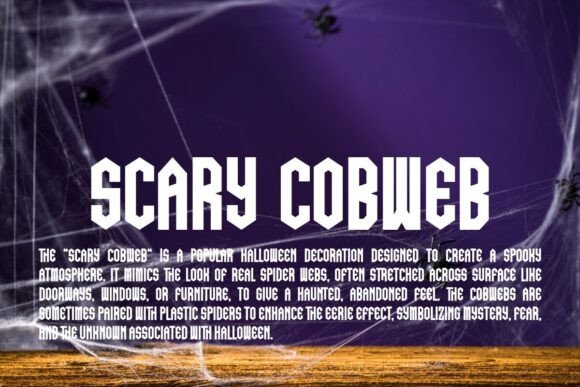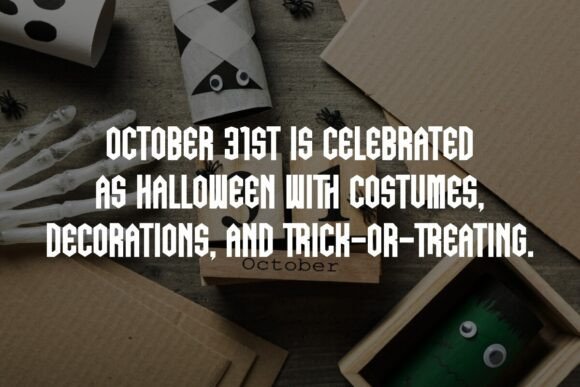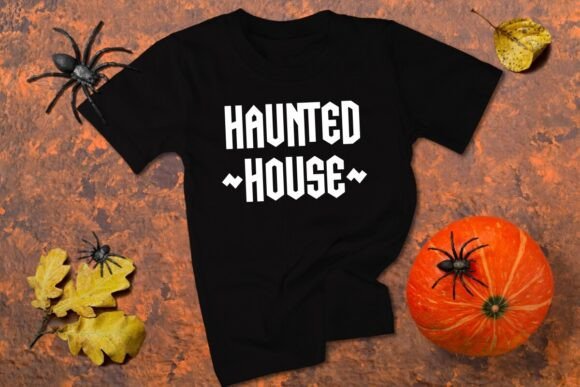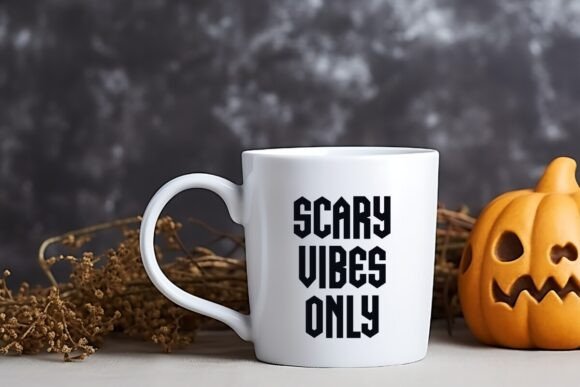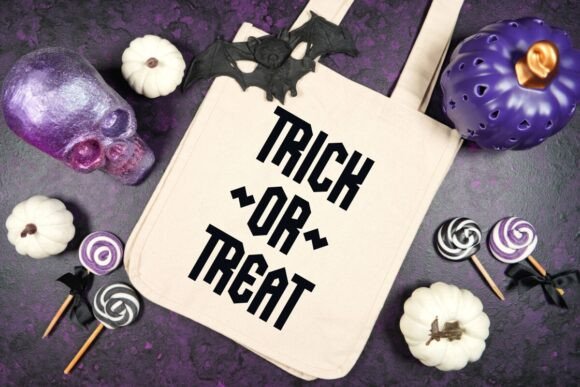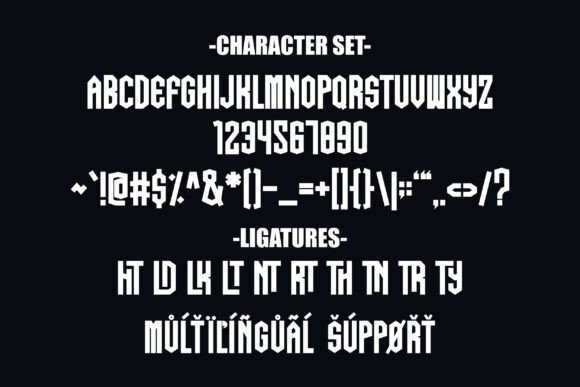
Introduction to Ragatha Darkness Font
As a designer, there’s nothing quite like the thrill of bringing a creative project to life. You’ve poured over countless design resources, from sleek fonts to eerie textures, searching for the perfect combination to transport your audience to another world. And then, it happens – you stumble upon a font that makes your heart skip a beat. For many designers, that font is the Ragatha Darkness Font, a bold and quirky Halloween-inspired typeface that adds a touch of spooky charm to any design.
Whether you’re working on a haunted house backdrop, a Hocus Pocus-themed tumbler, or a spooky social media post, the Ragatha Darkness Font is the perfect addition to your design toolkit. With its unique twist and high-quality design, this font is sure to give your projects a standout supernatural feel. And the best part? It’s available for free download, making it an invaluable resource for designers of all levels.
Key Features of Ragatha Darkness Font
- High-quality design resource ideal for creative projects, offering a unique and mysterious aesthetic.
- Ragatha Darkness Font features a transparent background, making it easy to overlay on various images or designs.
- Each character is carefully crafted with high-resolution details, ensuring crisp and clear readability.
- Ragatha Darkness Font is perfect for designers seeking a bold, gothic-inspired typography to elevate their creative project.
Honest Review: Ragatha Darkness Font
I recently stumbled upon the Ragatha Darkness Font while searching for a high-quality design resource for a creative project. I was immediately drawn to its sleek and mysterious aesthetic, perfect for adding a touch of darkness to any design.
Here are some of the things that work well with the Ragatha Darkness Font:
- ✨ High-quality design: The font is crisp and well-designed, making it perfect for professional projects.
- ✨ Versatile: The font works well in a variety of contexts, from modern to vintage-inspired designs.
- ⚠️ Limited character set: The font only includes a limited character set, which may not be suitable for longer text-based projects.
- ⚠️ Not ideal for small text: The font may not be the best choice for small text, as it can become difficult to read.
Overall, I’m impressed with the Ragatha Darkness Font. While it may have some limitations, its unique design and high-quality aesthetic make it a great addition to any design library.
Introduction to Ragatha Darkness Font
Ragatha Darkness Font is a high-quality design resource ideal for creative projects that require a unique and mysterious touch. With its sleek and modern design, this font is perfect for designers looking for a free download to elevate their work.
Common Use Cases for Ragatha Darkness Font
Ragatha Darkness Font is perfect for use in creative projects such as:
- Dark-themed websites and apps
- Mysterious and suspenseful movie posters
- High-end product packaging and branding
- Edgy social media graphics and advertisements